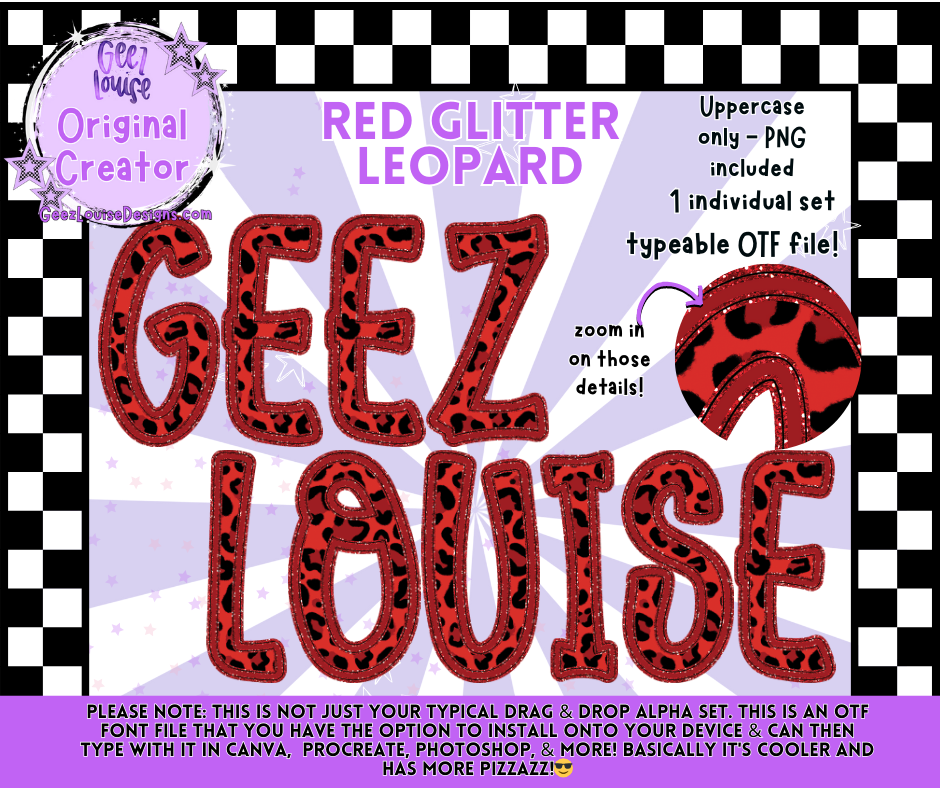
Red Glitter Leopard Faux Embroidery OTF Alpha | Typeable Font + PNG Set
Add some wild sparkle to your designs with the Red Glitter Leopard Faux Embroidery OTF Alpha! 🐆❤️ This set combines bold leopard print with a glitter effect and faux embroidery finish — perfect for standing out in holiday, sports, or everyday creations.
With this alpha, you’re not just getting a flat PNG — you get a typeable OTF font that installs directly to your device. That means you can type instantly in your favorite programs with all the faux embroidery, leopard, and glitter detail built in.